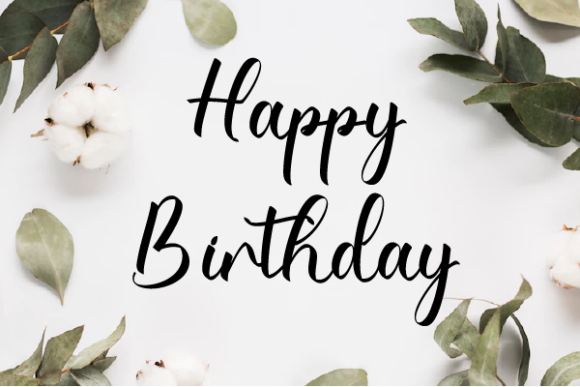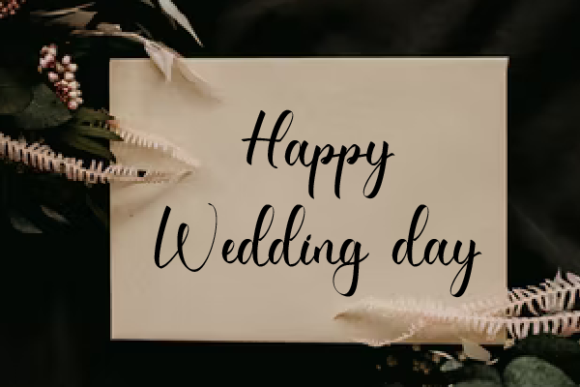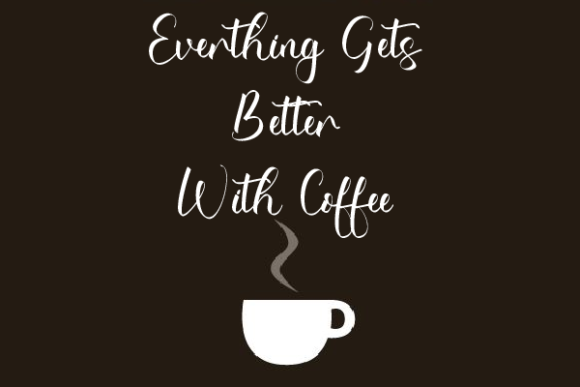
Shoniyeh Font
About Shoniyeh Font
Shoniyeh is a beautiful and refined script font that embodies a classy, elegant, and modern aesthetic. With its sophisticated appearance, this font is a versatile choice suitable for various design applications such as logos, branding, invitations, stationery, wedding designs, social media posts, and more.
The refined script of Shoniyeh adds a touch of elegance to your designs, making it particularly well-suited for projects that require a sophisticated and modern look. Each character is carefully crafted to maintain a balance between classic and contemporary design elements.
In branding and logos, Shoniyeh becomes a valuable asset, providing a signature-style font that exudes authenticity and uniqueness. Its classy and elegant appearance enhances the overall identity of a brand, making it visually appealing to a broad audience.
For wedding designs and stationery, Shoniyeh brings a sense of romance and style. The font’s refined script creates a timeless and sophisticated look, setting the tone for a memorable celebration.
In social media posts and various digital applications, Shoniyeh adapts seamlessly, adding a touch of modern elegance to your online presence. Its versatility allows it to complement a wide range of design contexts, ensuring a cohesive and stylish result.
Choose Shoniyeh when you want a font that combines beauty, refinement, and a modern aesthetic. Let this font be the key to elevating your designs, making them stand out with a classy and elegant touch across various creative projects.